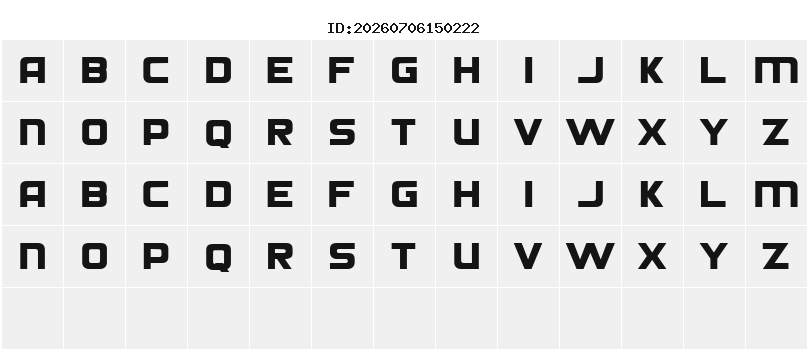
Die Hund Preview
• Font Name: Die Hund
• Font ID: Die Hund Normal
• Full Font Name: Die Hund Normal
• PostScript Name: DieHundNormal
About Die Hund.ttf
Die Hund.ttf is a modern, elegant sans-serif font designed for ultimate readability and visual harmony. Perfect for branding, headlines, web design, and print materials.